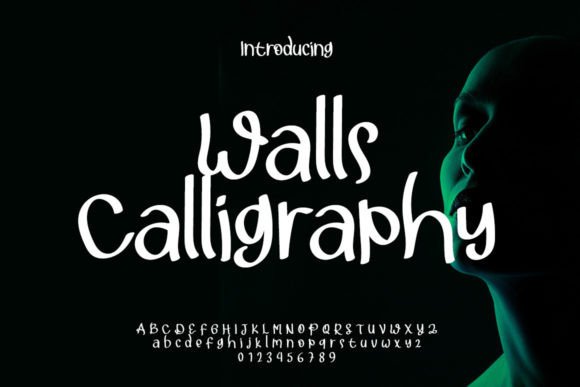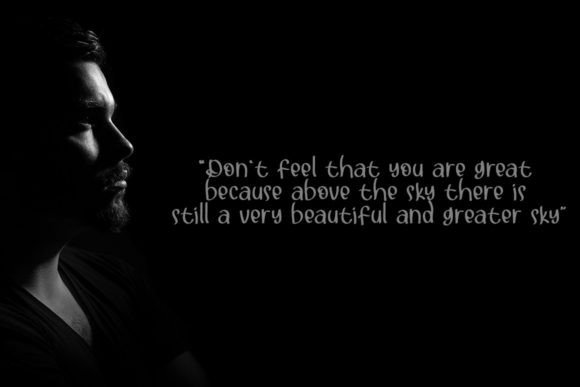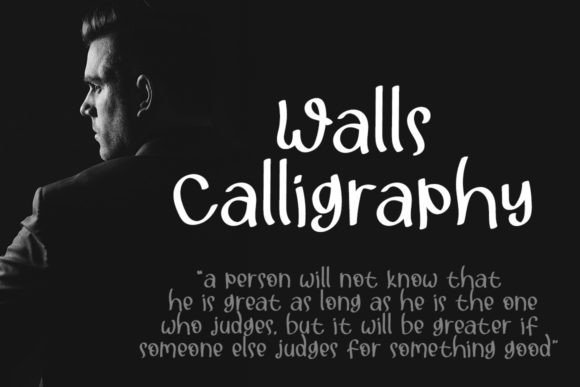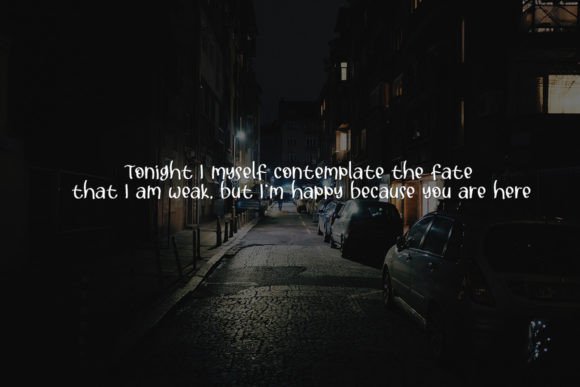
Walls Calligraphy Font
A Beautiful and Sweet Handwritten Script
Walls Calligraphy is a charming handwritten font designed to bring joy and elegance to all your creative projects. Each letter features smooth, clean strokes that feel fresh and balanced. The graceful lines create a refined look while maintaining a playful, friendly personality.
Whether you’re designing professional branding or personal crafts, Walls Calligraphy helps your text stand out beautifully.
Walls Calligraphy is a versatile font that works well in countless situations. It’s ideal for wedding invitations, save-the-date cards, and event signage. The soft script style adds a romantic feel that makes every moment special.
Use Walls Calligraphy for logos, business cards, and brand identities. The clean shapes give your brand a polished yet approachable style that feels modern and memorable.
This font is also great for product packaging, boutique labels, and handmade goods. The elegant curves make your products look premium and thoughtfully designed.
Walls Calligraphy is perfect for social media graphics, blog headers, and Pinterest pins. Wherever you use it, the font creates a light, joyful vibe that attracts attention.
The font includes uppercase and lowercase letters, numbers, and punctuation marks. Ligatures are included so your text flows naturally and looks cohesive.
Clear, Fresh, and Easy to Read
Even with its decorative feel, Walls Calligraphy remains clear and legible at any size. Balanced spacing between letters keeps your text tidy and professional, whether you’re designing large titles or small captions.
Many designers pair Walls Calligraphy with a simple sans-serif font to create contrast. Use Walls Calligraphy for headlines and the sans-serif for body text. This combination guides the reader’s eye and keeps your layouts clean and modern.
To showcase Walls Calligraphy’s joyful style, use soft backgrounds and bright color palettes. Shades like blush pink, ivory, and warm beige help the smooth lines stand out without distraction.
When designing wedding materials or premium packaging, consider adding delicate illustrations or watercolor elements to enhance the romantic look. For social media and marketing graphics, keep layouts simple so the script remains the focus.
Think about the mood you want to create. Walls Calligraphy is perfect for designs that should feel lighthearted, elegant, and welcoming.
Walls Calligraphy is more than just a handwritten script font. It’s a creative tool that transforms everyday text into something unforgettable. Its clean curves and sweet details bring sophistication and warmth to any project.
Adding Walls Calligraphy to your font collection gives you a reliable option for all types of creative work. From weddings and branding to packaging and social media, this font adapts effortlessly to your ideas.